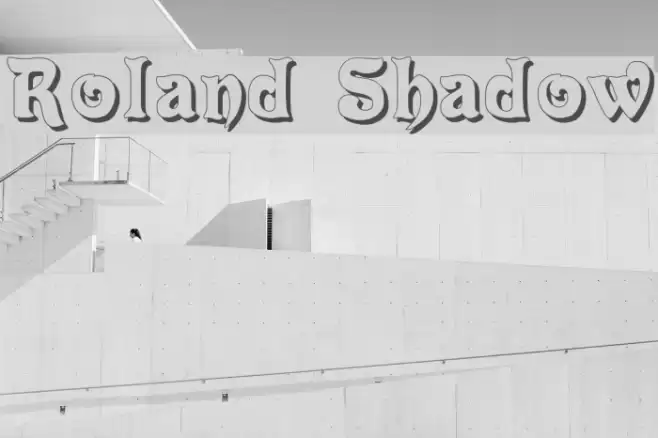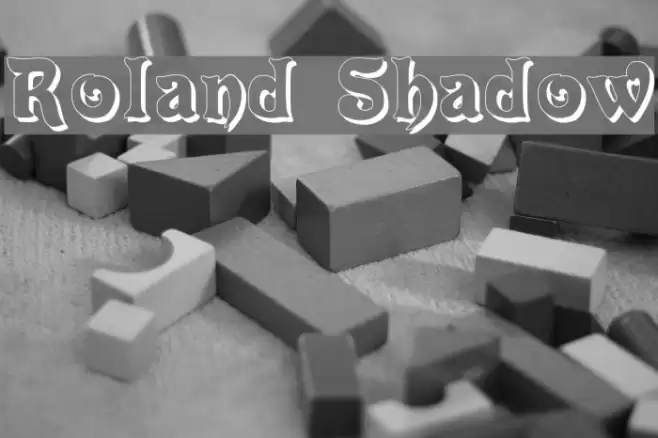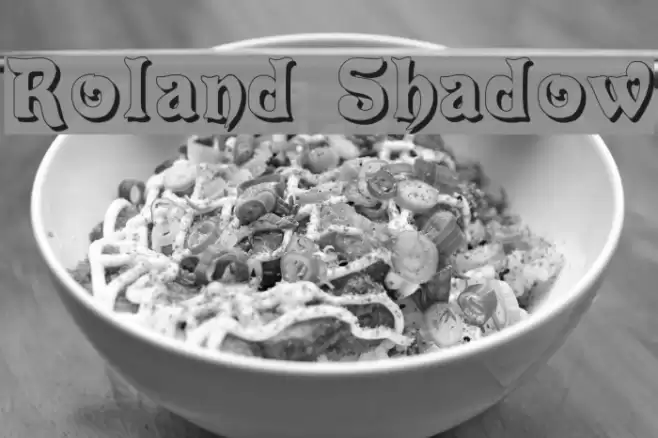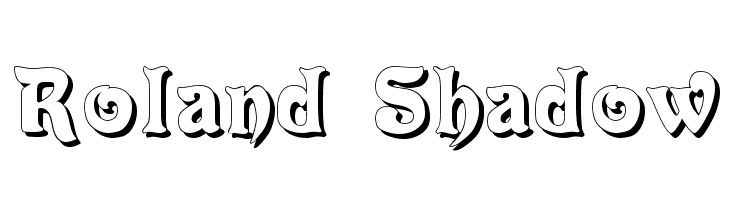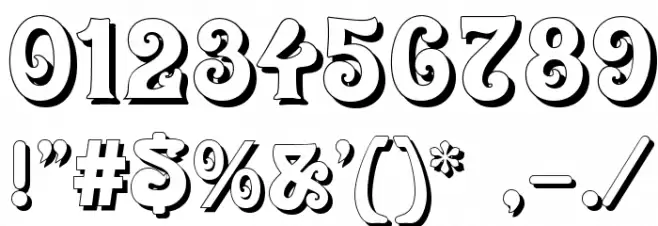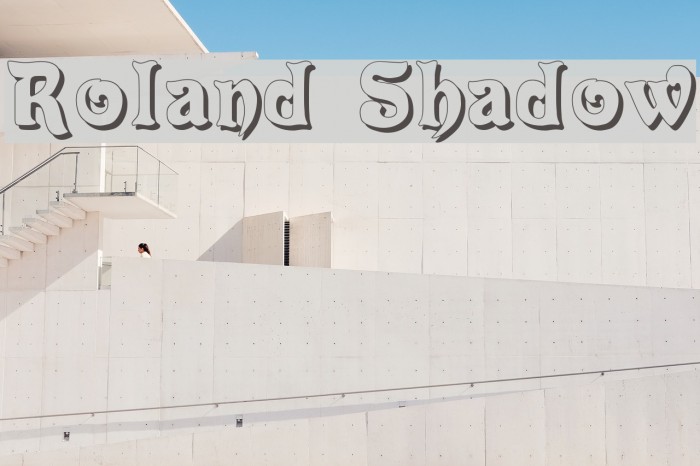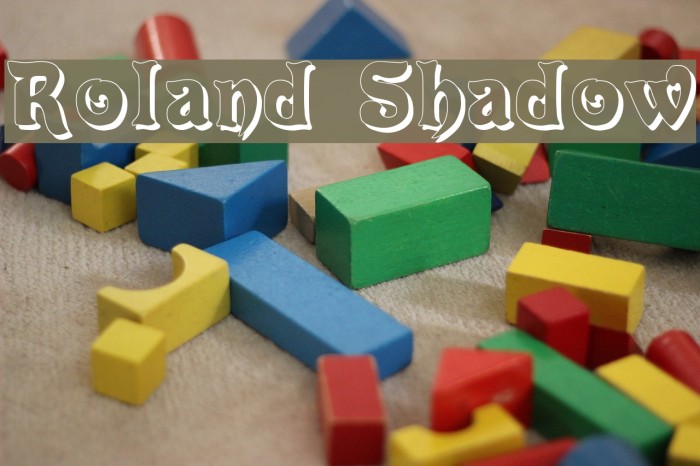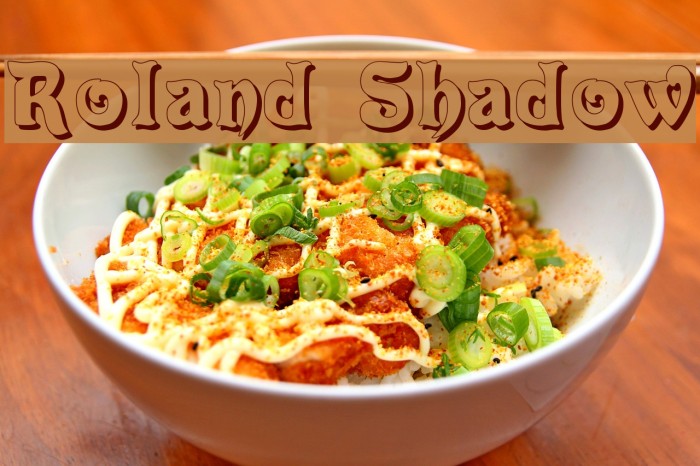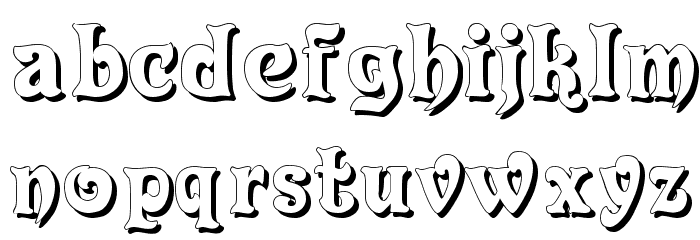
Roland Shadow Font
Roland Shadow Description
This font features a bold and playful design with a distinct shadow effect that gives each character a three-dimensional appearance. The letters are thick and rounded, with a whimsical style that adds a sense of fun and creativity. The shadowing is consistent across all characters, enhancing the visual depth and making the text stand out. This font is particularly eye-catching and would be suitable for projects that require a lively and engaging typeface. The uppercase and lowercase letters maintain a uniform style, while the numerals and special characters are equally bold and expressive, ensuring a cohesive look throughout any text.
A bold, playful font with a shadow effect for a three-dimensional look from Uncategorized fonts.
- Proposed Projects: Ideal for children's books, playful branding, posters, and creative invitations.
- Overall Style: Playful, Whimsical